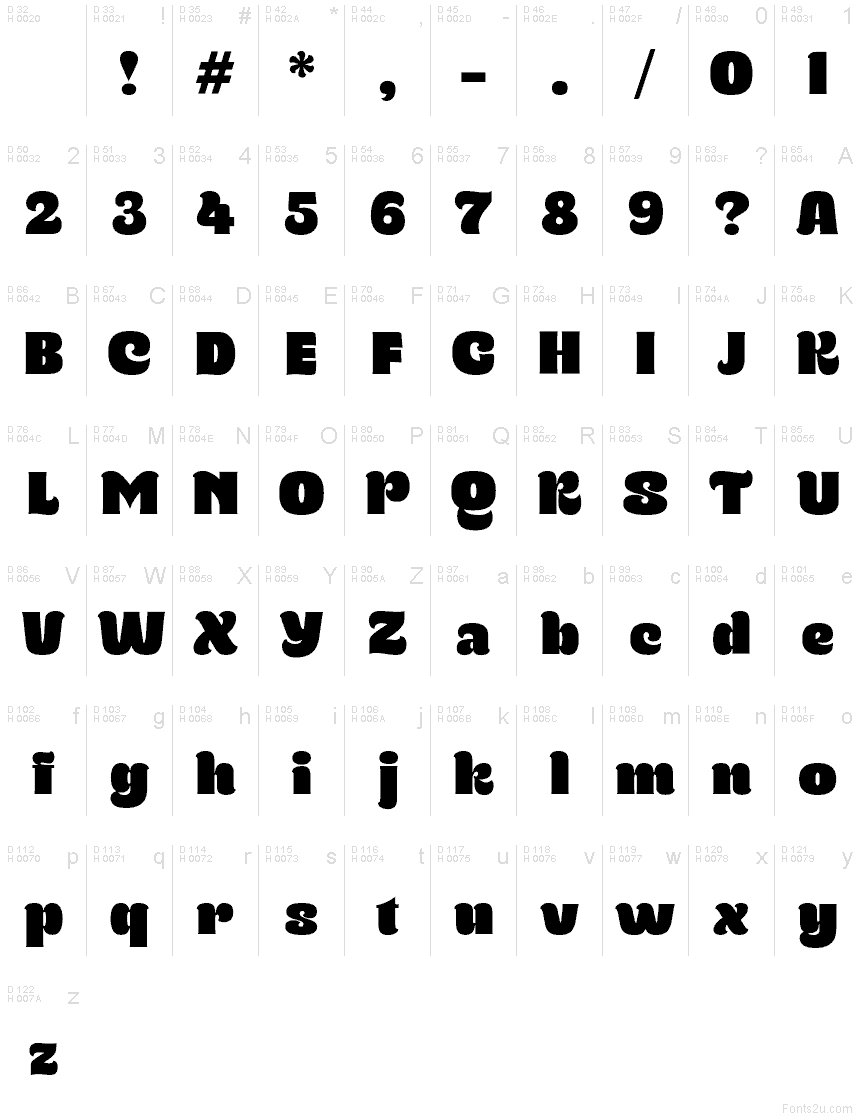
SG Briscy Regular DEMO
SG Briscy font by Studio Gulden is a free retro display typeface with unapologetically chunky curves and inky black shapes that feel almost sculpted. Its letters swell with weight, with tight counters and rounded edges that give off a bold, bubble-slab vibe—somewhere between playful 70s poster art and a punchy logo mark. The rhythm is dense and confident, so even a few words hit like a graphic element, not just text.
Using SG Briscy, headlines and wordmarks instantly gain that nostalgic, feel-good impact that grabs attention on posters, packaging, merch, album covers, and social graphics. This free font shines when you keep copy short and bold and let the letterforms breathe with generous spacing around them. Pair it with a clean, light grotesk or geometric sans for body text to balance its heavy, soft-edged personality.